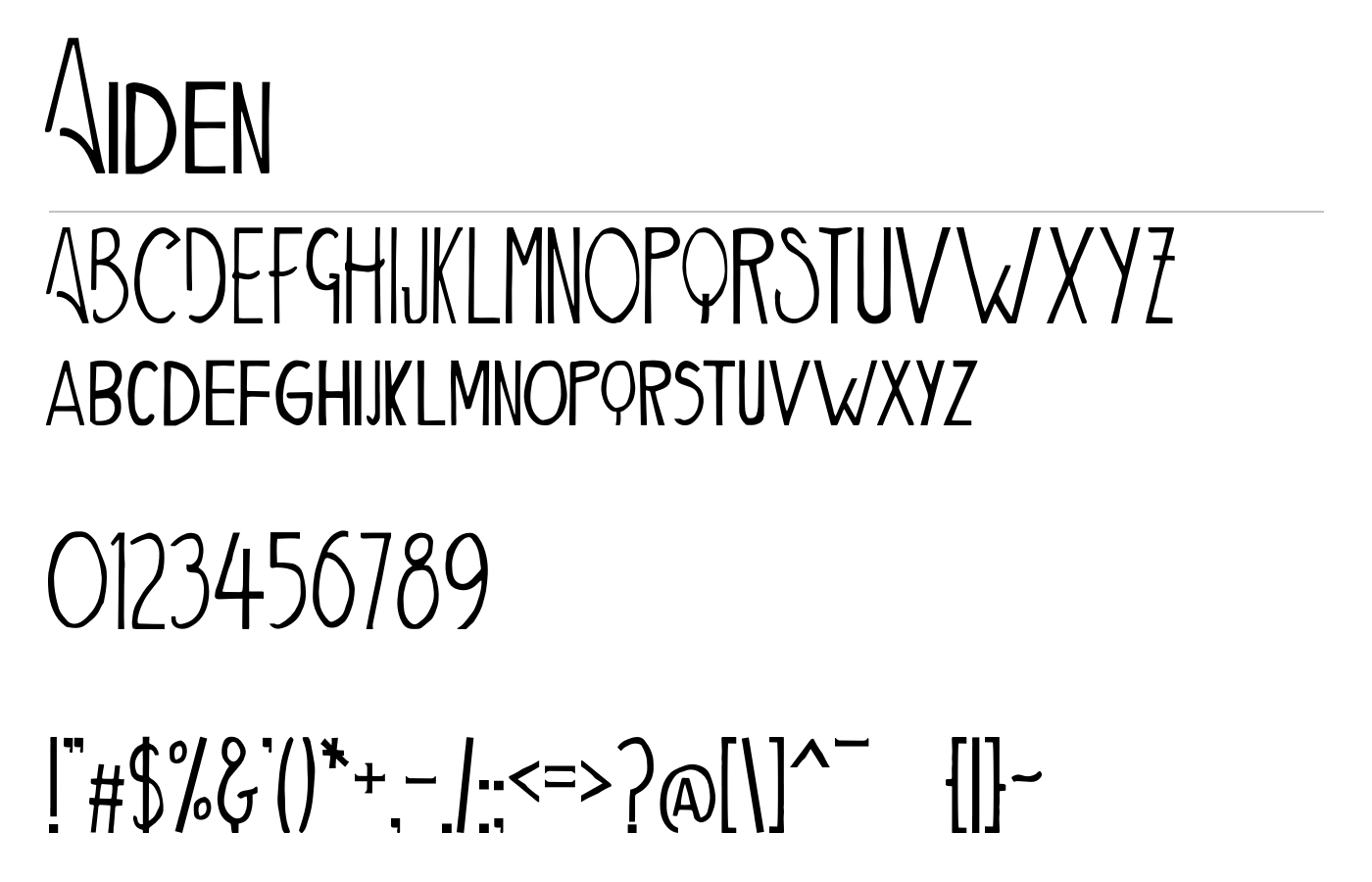
Aiden Font is a tall, narrow sans serif typeface with playful and quirky character shapes that lend it a hand-drawn, artistic feel. Its light weight and uneven stroke widths give it an informal, friendly personality, making it ideal for creative branding, children’s books, or casual headlines where a unique, approachable style is desired. This font works best in display settings where its distinctive letterforms can stand out and add a touch of whimsical charm.
Aiden Font
About Aiden Font